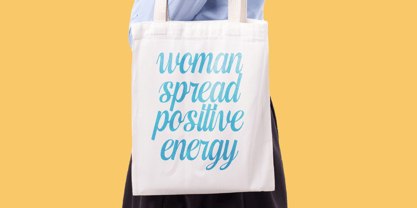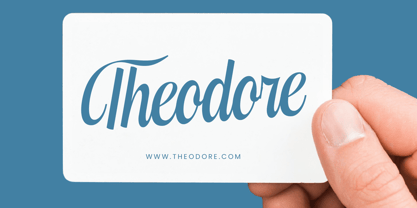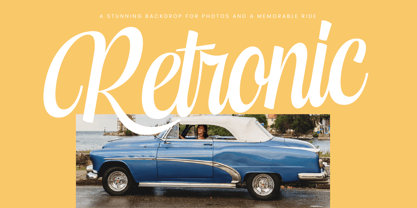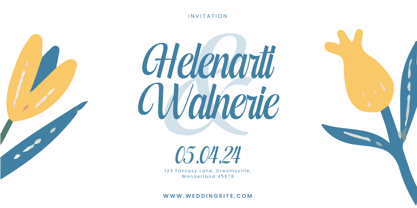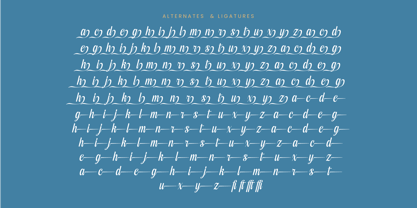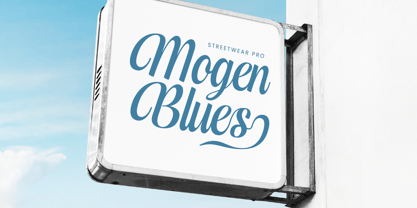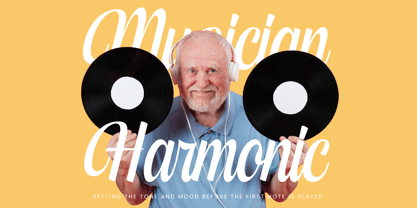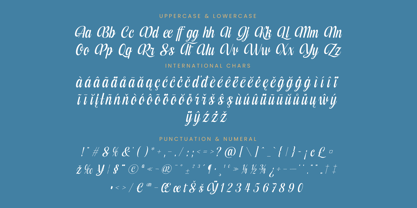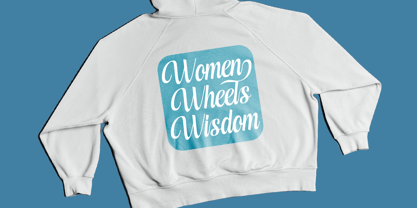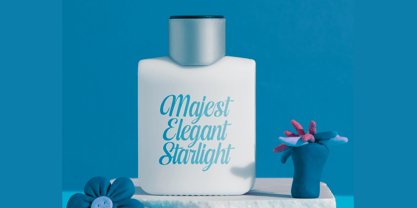
Kameli Antares
by Timelesstype Studio
The Kameli Antares Font Family was designed by Heru Utama Putra and published by Timelesstype Studio. Kameli Antares contains 2 styles and family package options. More about this family
Kameli Antares - Modern Calligraphy Font , from Timelesstype, Suitable for any projects such as: logos, branding projects, homeware designs, product packaging, mugs, quotes, posters, shopping bags, t-shirts, book covers, name card, invitation cards, greeting cards, label, photography, watermark, special events, and all your other luxury and beautiful projects that need a Luxury Serif taste.